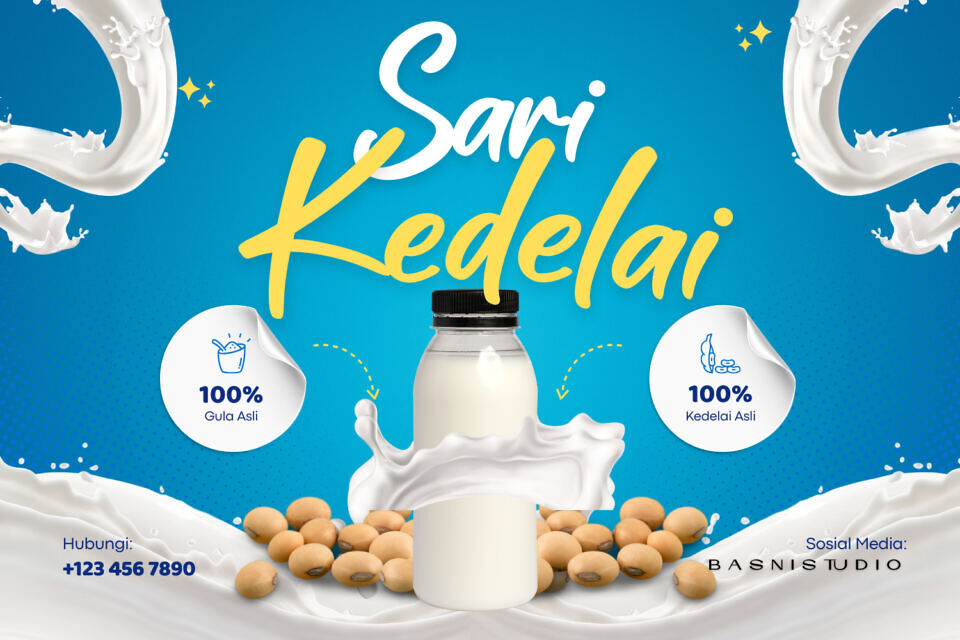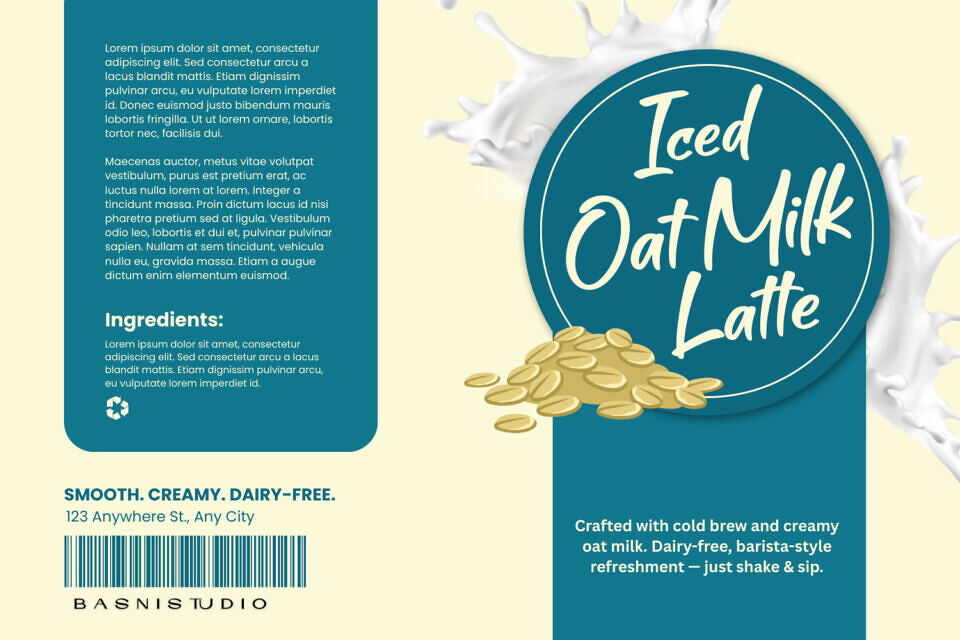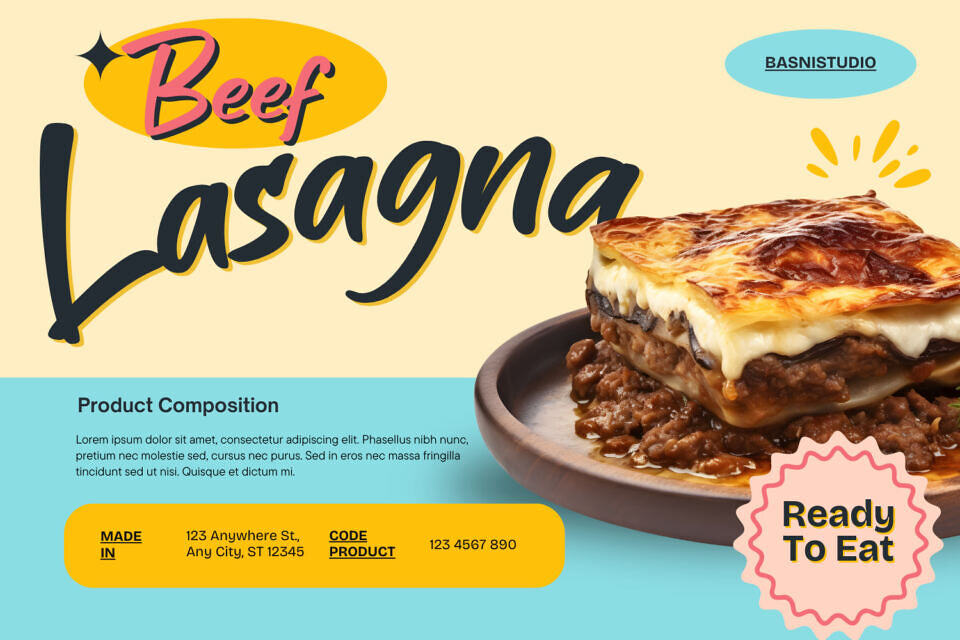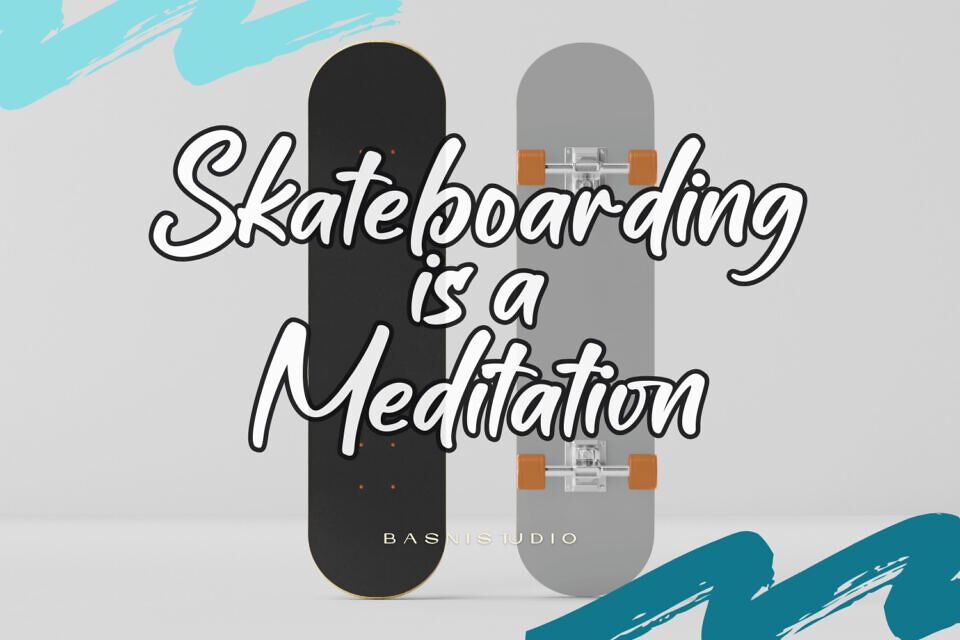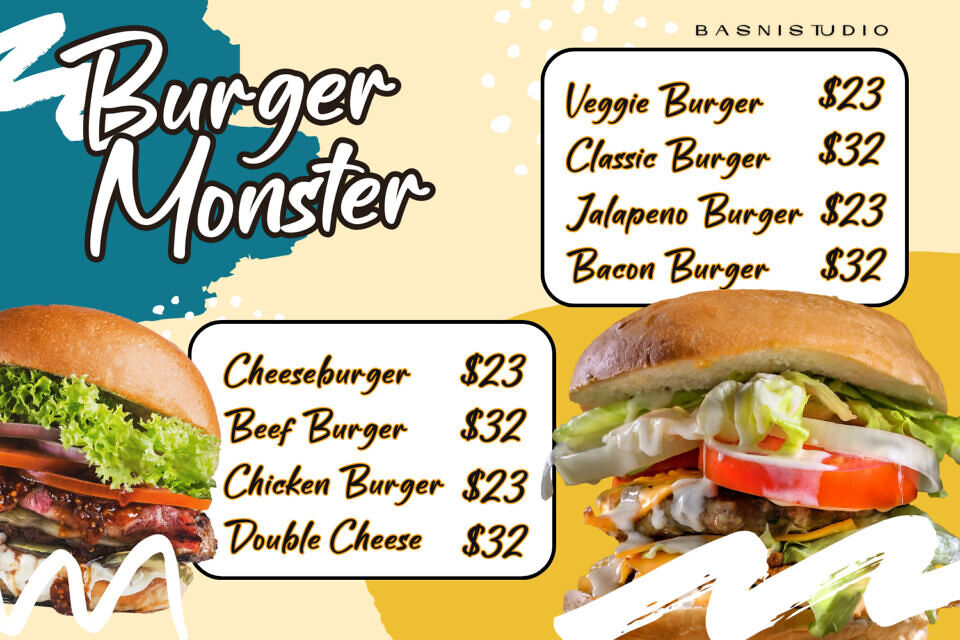
Roster York is a casual, handwritten font that captures the raw, energetic soul of street art and authentic brushwork. Designed by Basnistudio, this font blends urban edge with approachable style. Its fluid strokes mimic a real brush, giving text a personal, handmade feel. Bold and confident, it’s perfect for projects needing an organic touch.
Ideal for edgy designs, social media, or creative branding, it adds a human element often missing from digital fonts, making it a statement of authenticity and freedom from traditional typography.